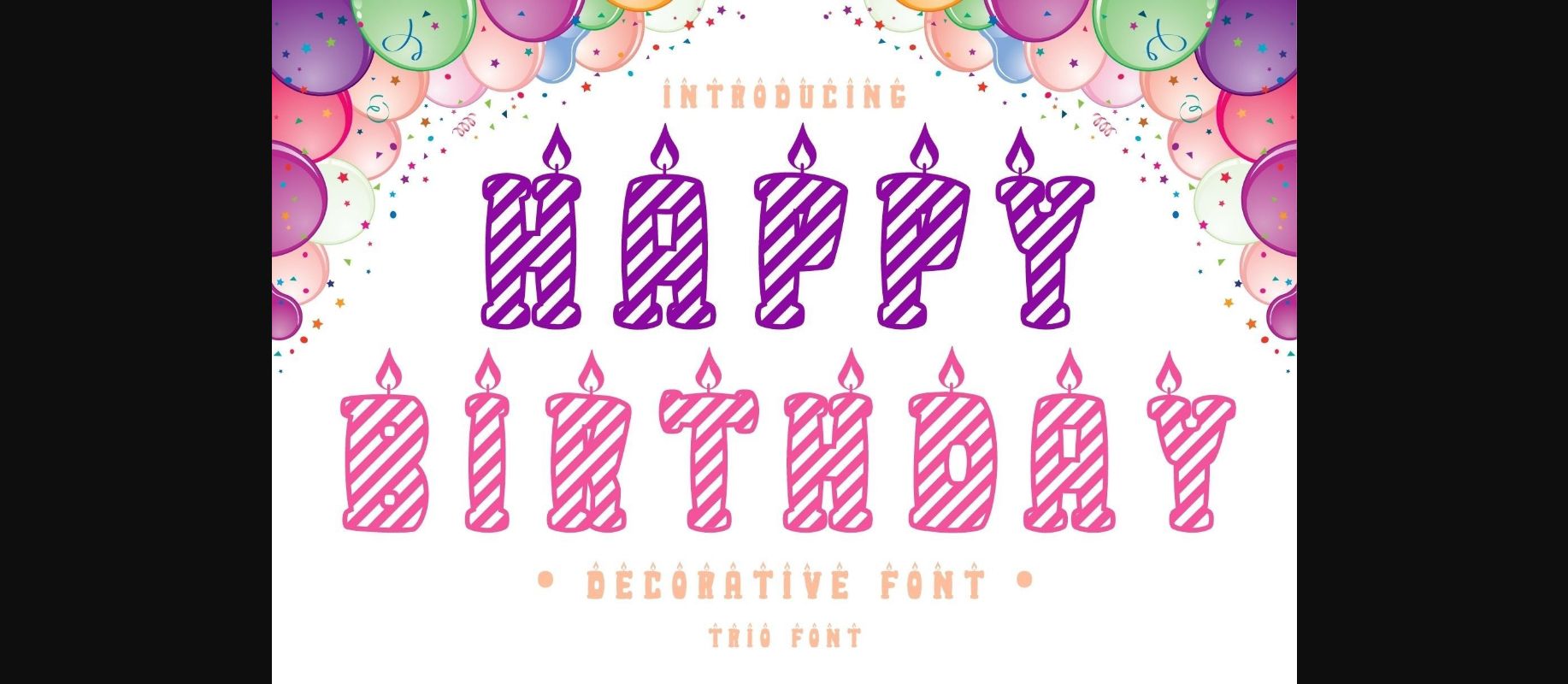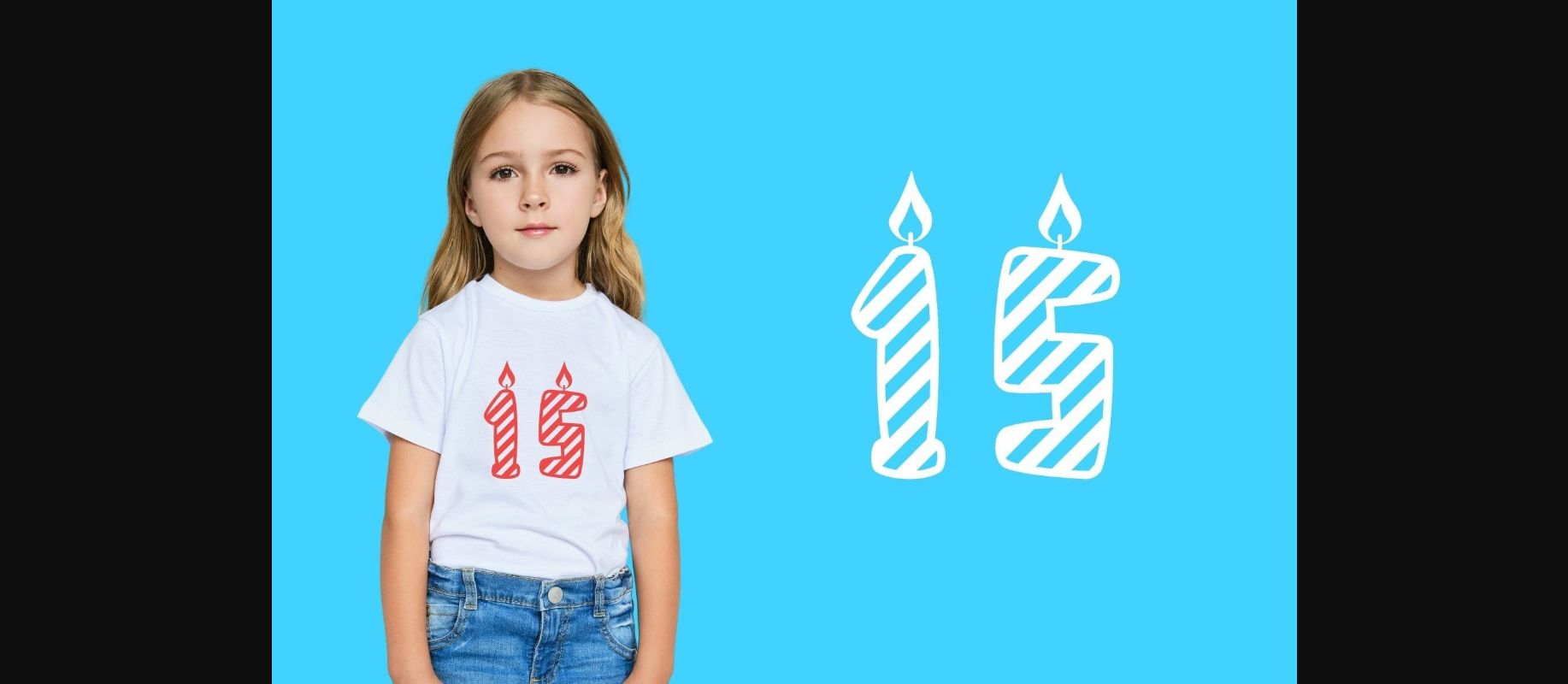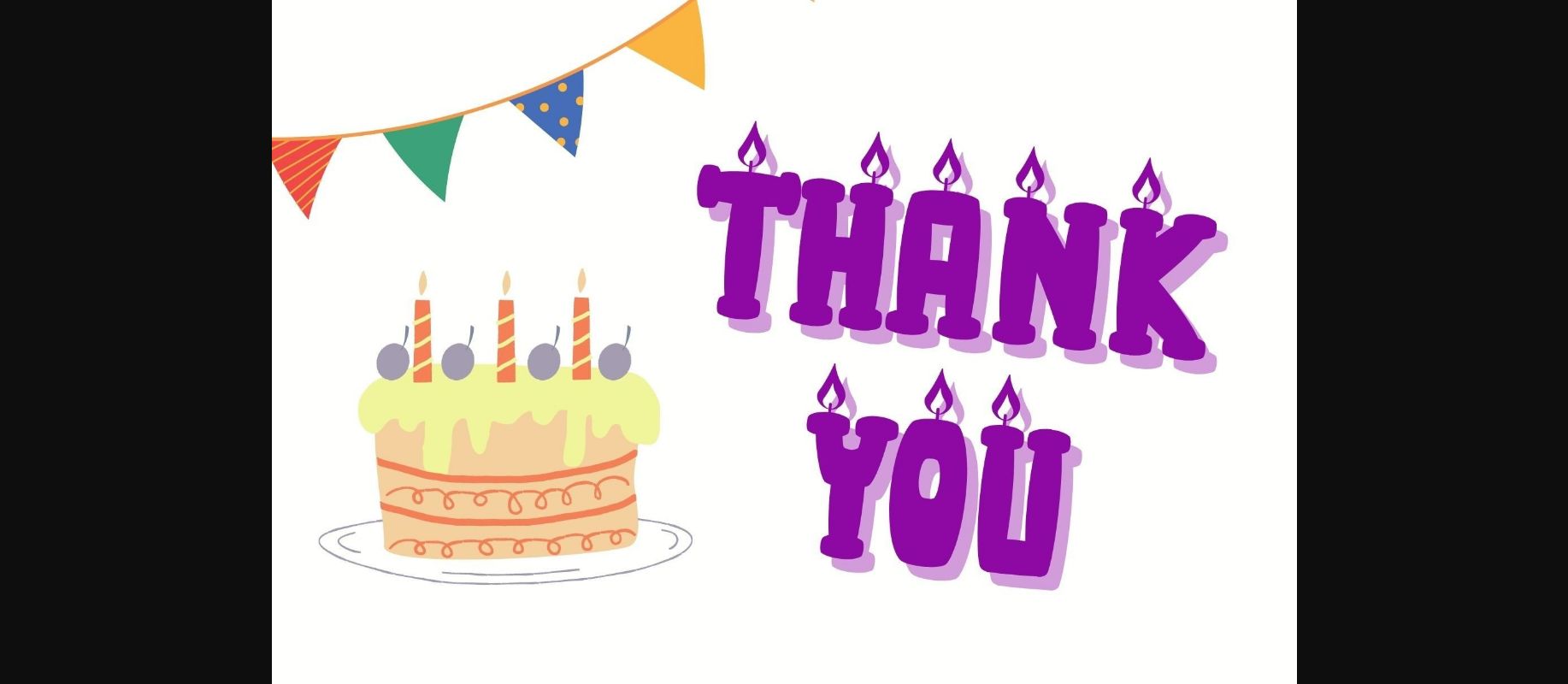
About Happy Birthday Font
Happy Birthday is a cute and fun decorative font. It embodies playfulness and authenticity and is the perfect choice for various projects such as blog posts, logos, branding, ads, invitations, greeting cards, planners, photo albums, decorations, and much more. Add it to any of your designs, and enjoy the results!